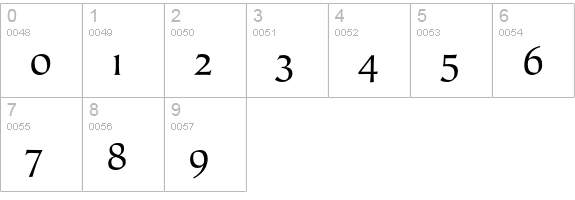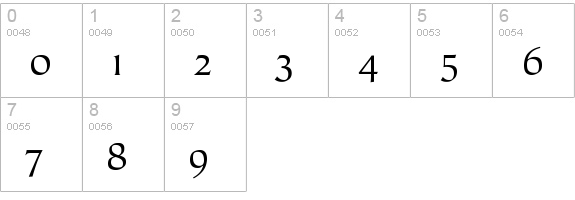
TiepoloSCEF-Book Font Details
TiepoloSCEF-Book is a comfortable, highly readable variant in the TiepoloSCEF typeface family \xE2\x80\x94 well suited to long-form body text, articles, and editorial content.
TiepoloSCEF-Book font is a stunning typeface crafted with precision and elegance. Its exceptional design is perfect for adding a touch of sophistication to any project. With its clean lines and balanced proportions, TiepoloSCEF-Book font exudes a timeless charm that effortlessly captures attention. This versatile font is suitable for a wide range of applications, from branding and logo design to web design and print materials. Its legibility and readability make it an excellent choice for body text, ensuring that your message is conveyed with clarity and professionalism. But what sets TiepoloSCEF-Book font apart from other fonts is that it is completely free! Yes, you read that right. This remarkable typeface is freely available for download at FontsMarket.com, one of the leading sources for high-quality fonts. With just a few clicks, you can enhance your design projects with this premium font without spending a dime. Don't miss out on the opportunity to elevate your designs with TiepoloSCEF-Book font. Its sleek and modern aesthetic, combined with its free availability, makes it a must-have for designers, creatives, and typography enthusiasts alike. Download TiepoloSCEF-Book font today and experience the power of elegance and affordability in one exceptional typeface.